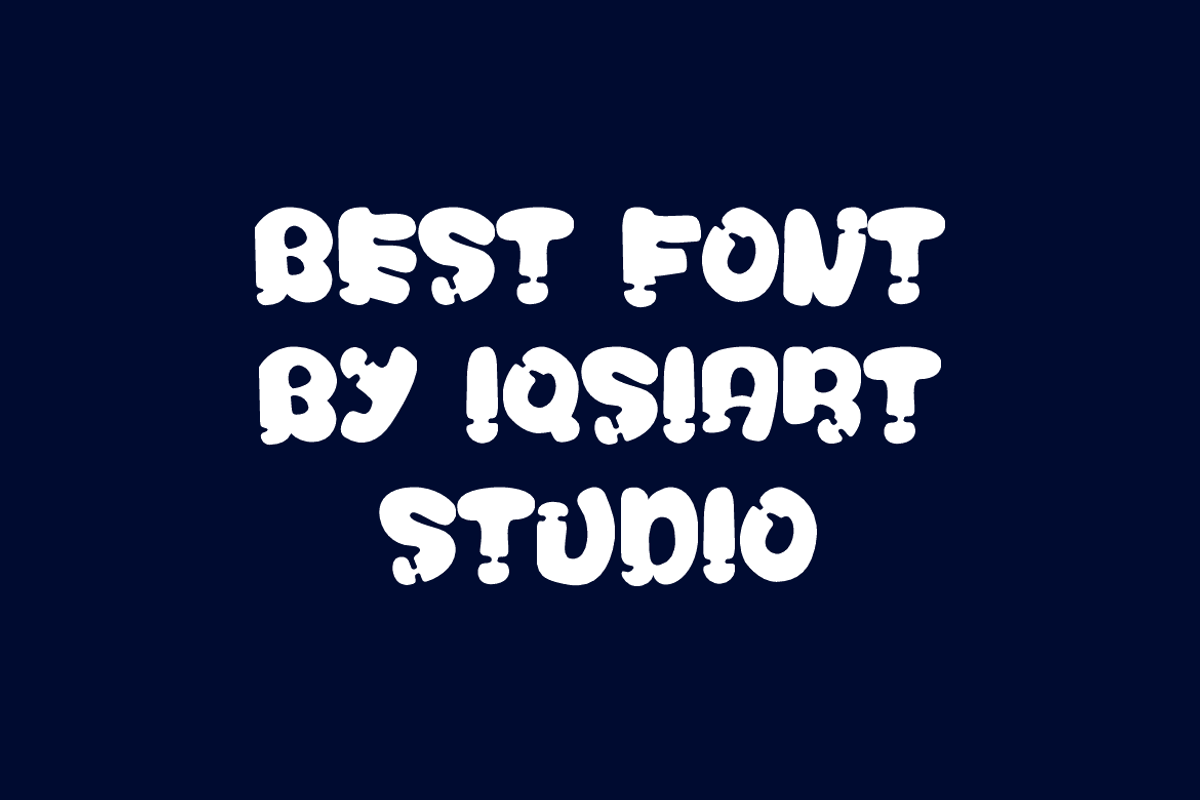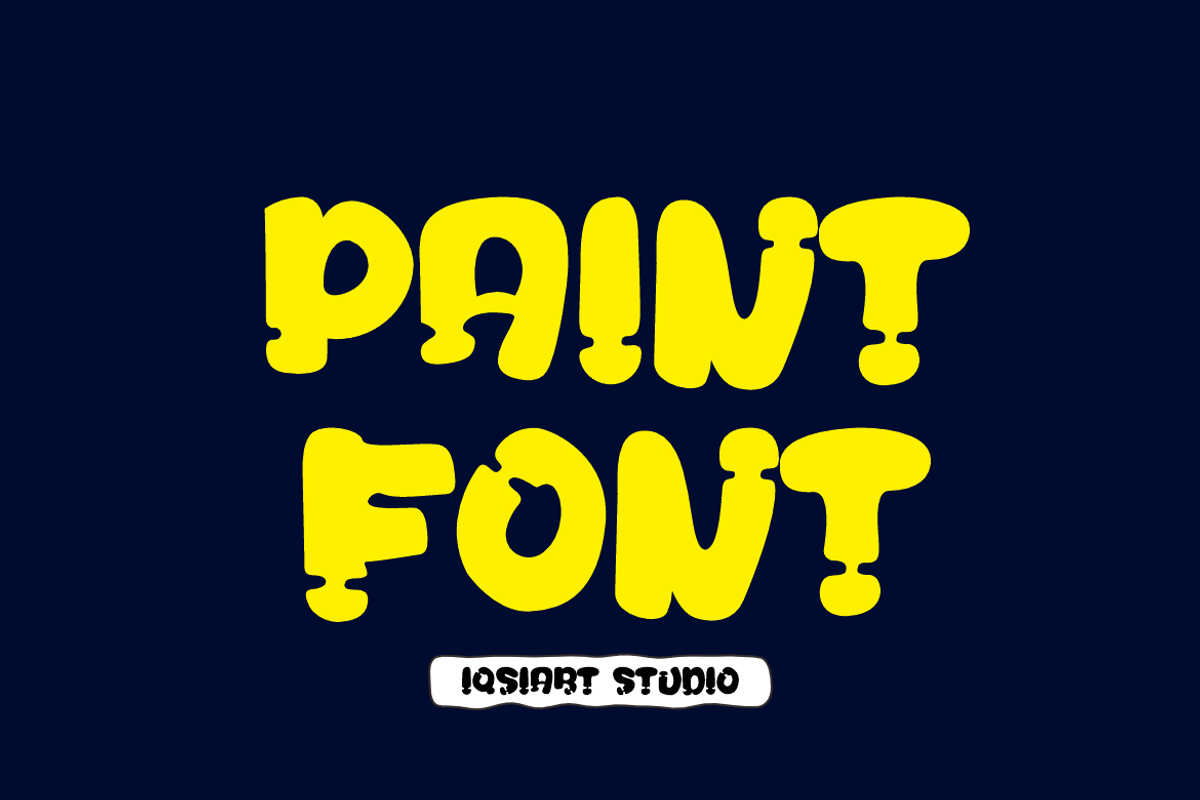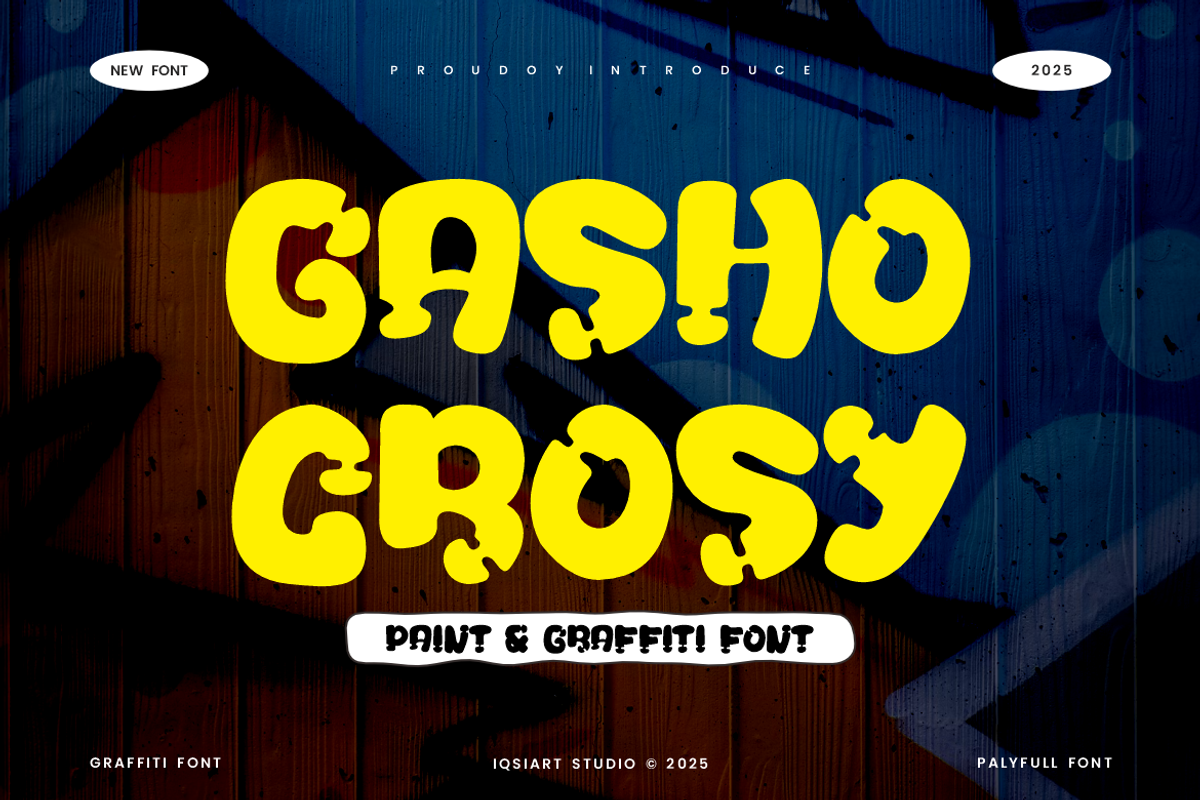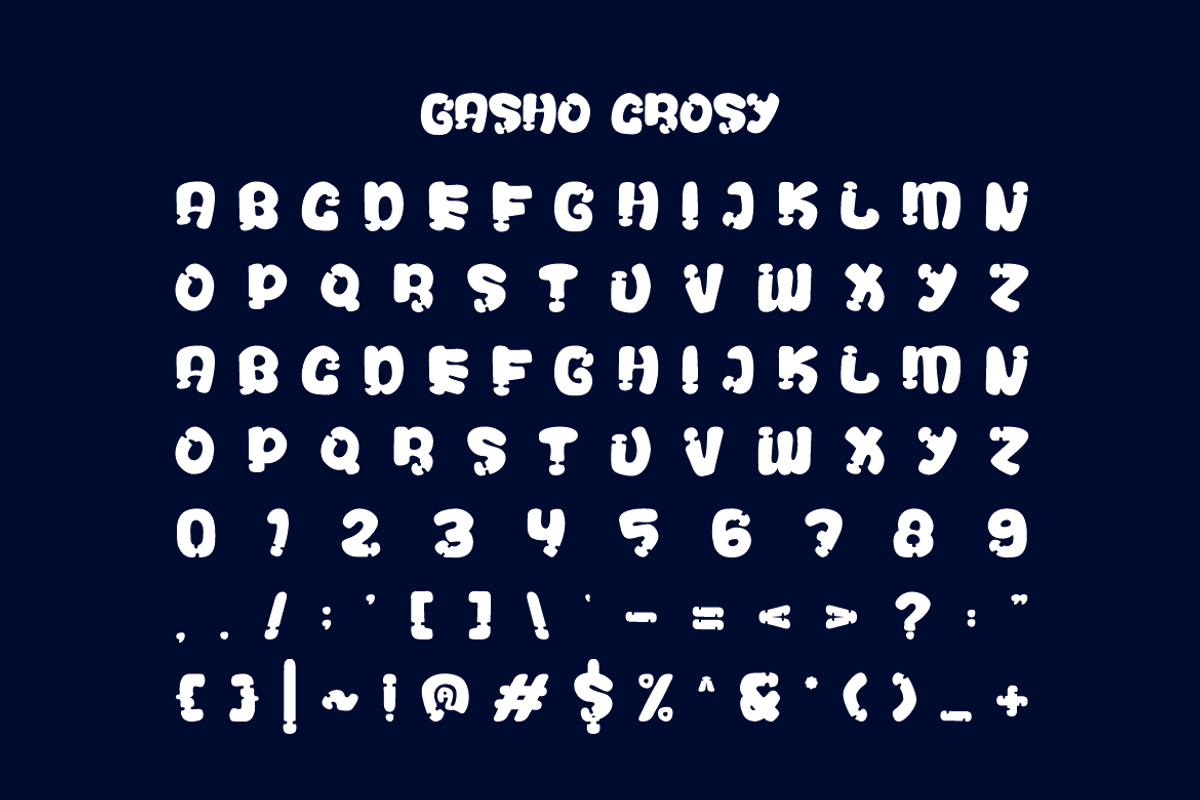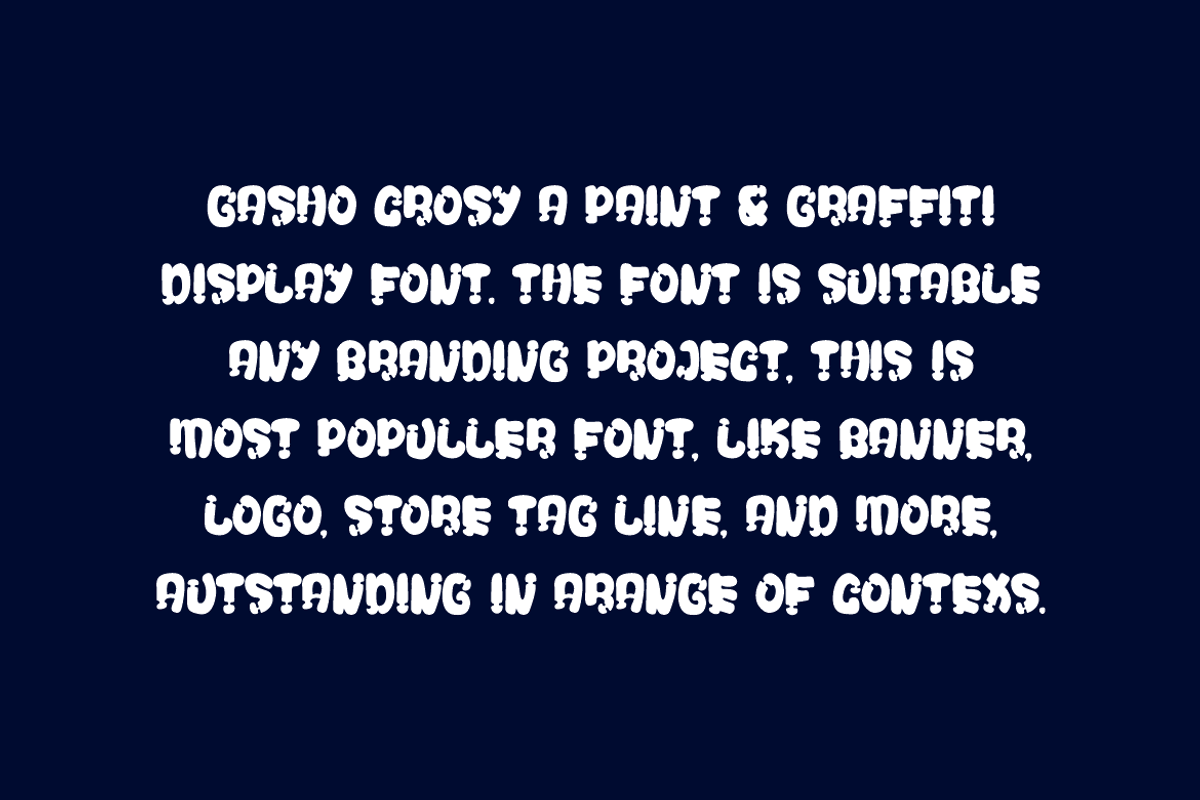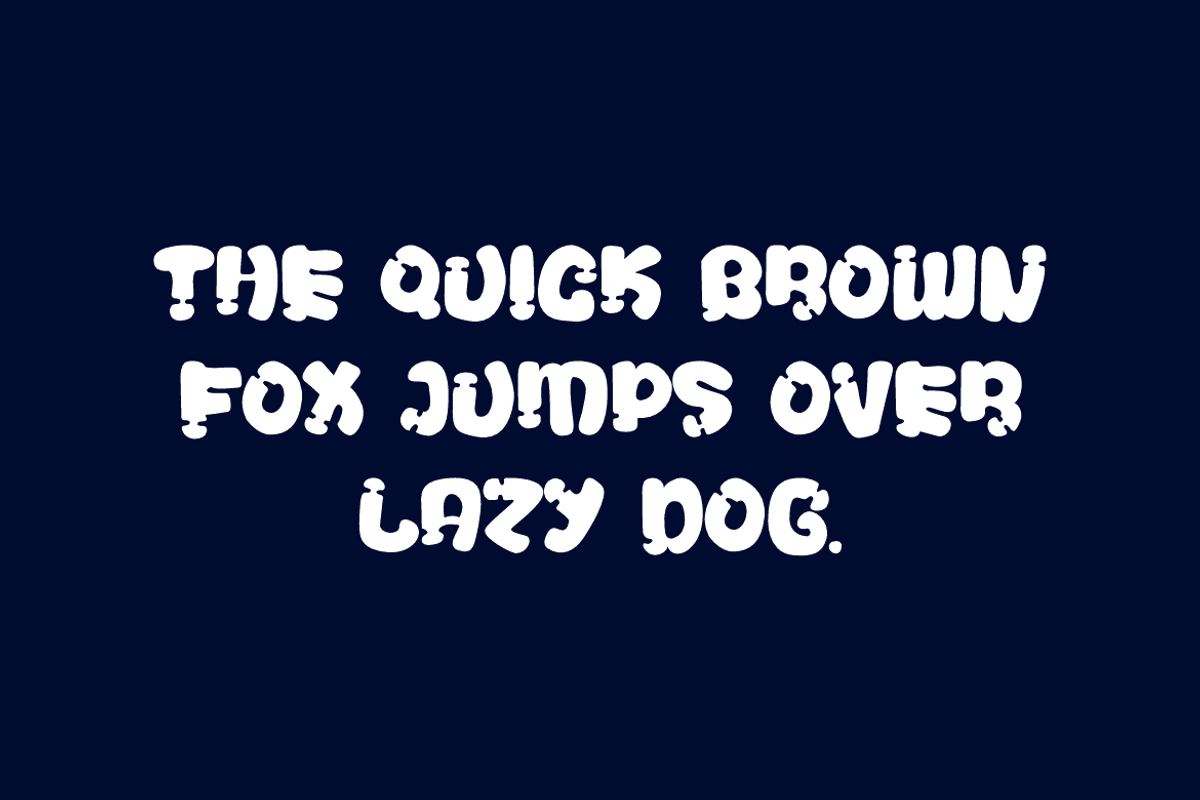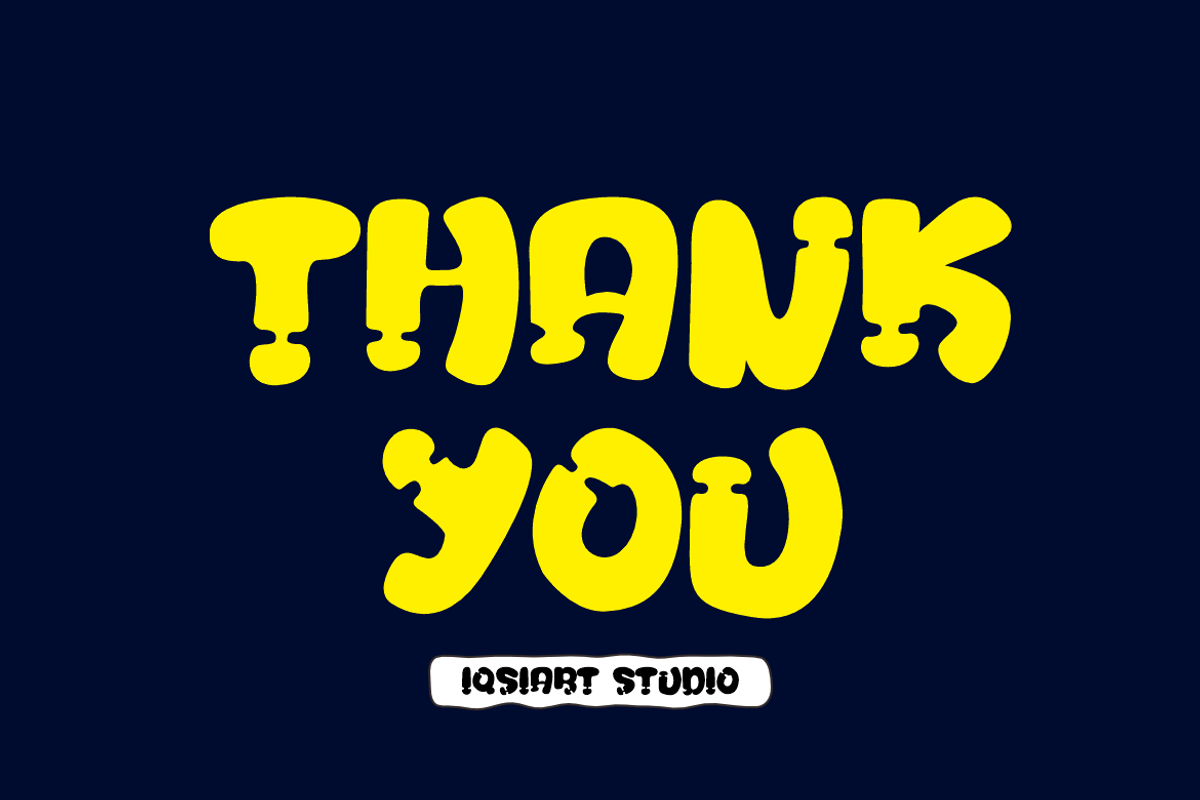
Gasho Crosy - Paint Font
Gasho Crosy Font is a best and authentic display font. This font can be used for your various needs. We provide various themes and font styles. visit our profile to get a wide variety of themes and different font styles you need.